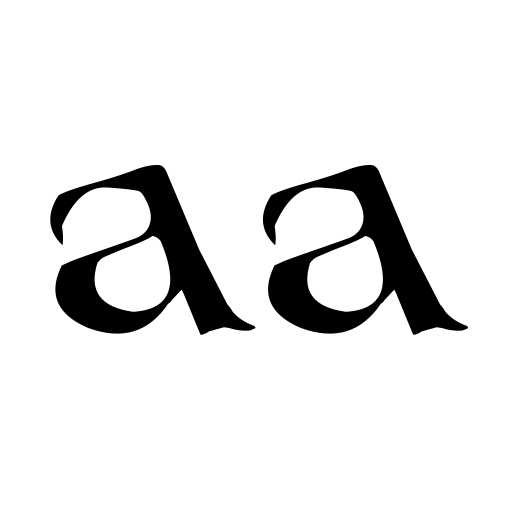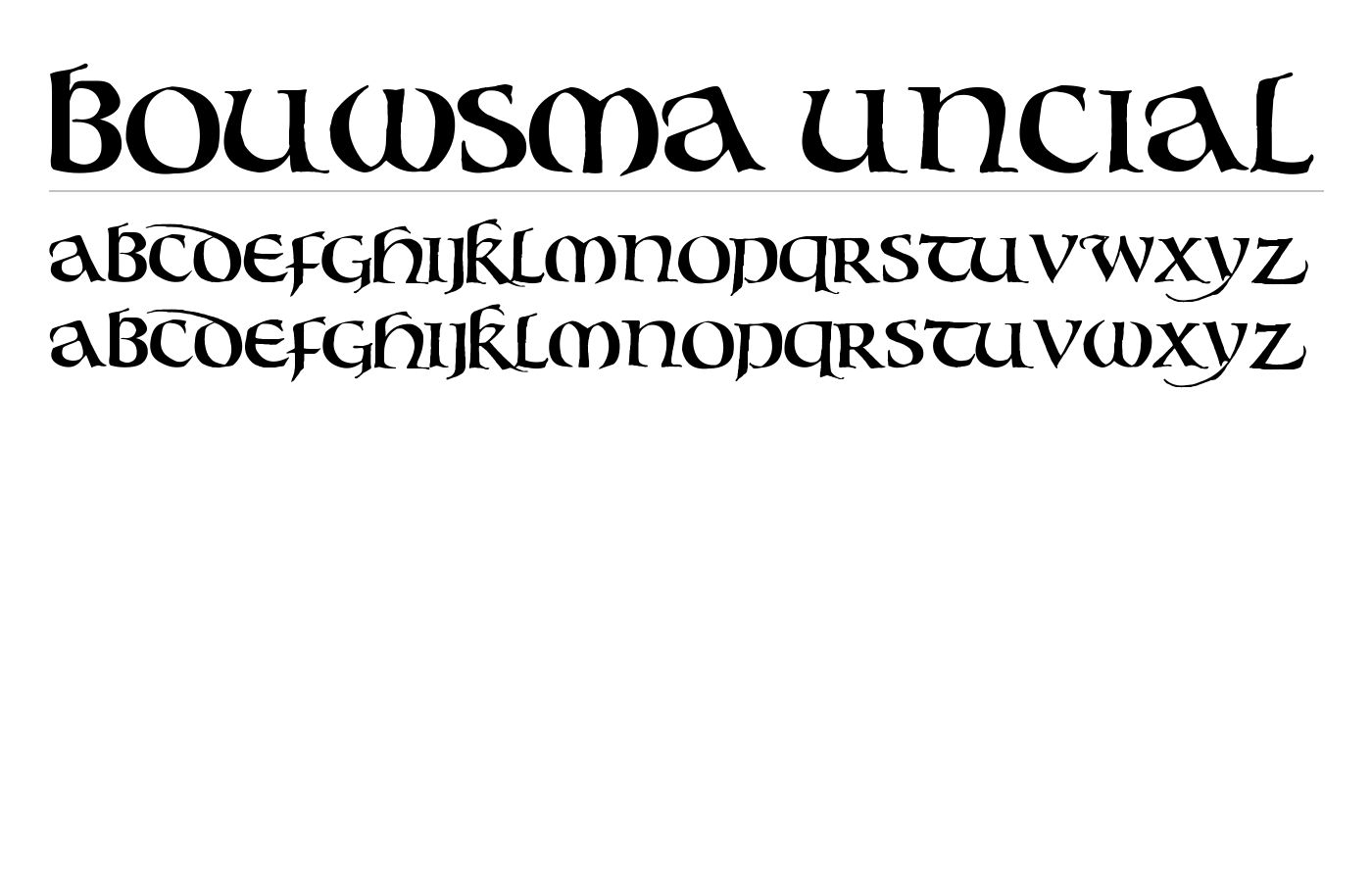
Bouwsma Uncial is a distinctive serif font inspired by traditional uncial scripts, featuring elegant, curved strokes with moderate contrast and a slightly condensed width. Its unique letterforms, with subtle calligraphic flairs and bracketed serifs, convey a historical yet approachable feel, making it well-suited for headlines, branding, and projects seeking a classic, artisanal touch. This font’s graceful style works beautifully in editorial designs, invitations, and any creative context where a blend of tradition and personality is desired.
Bouwsma Uncial Font
About Bouwsma Uncial Font
| Font family | Bouwsma Uncial Font |
| Designer | MouserFonts - Jerry Landers 2000 |